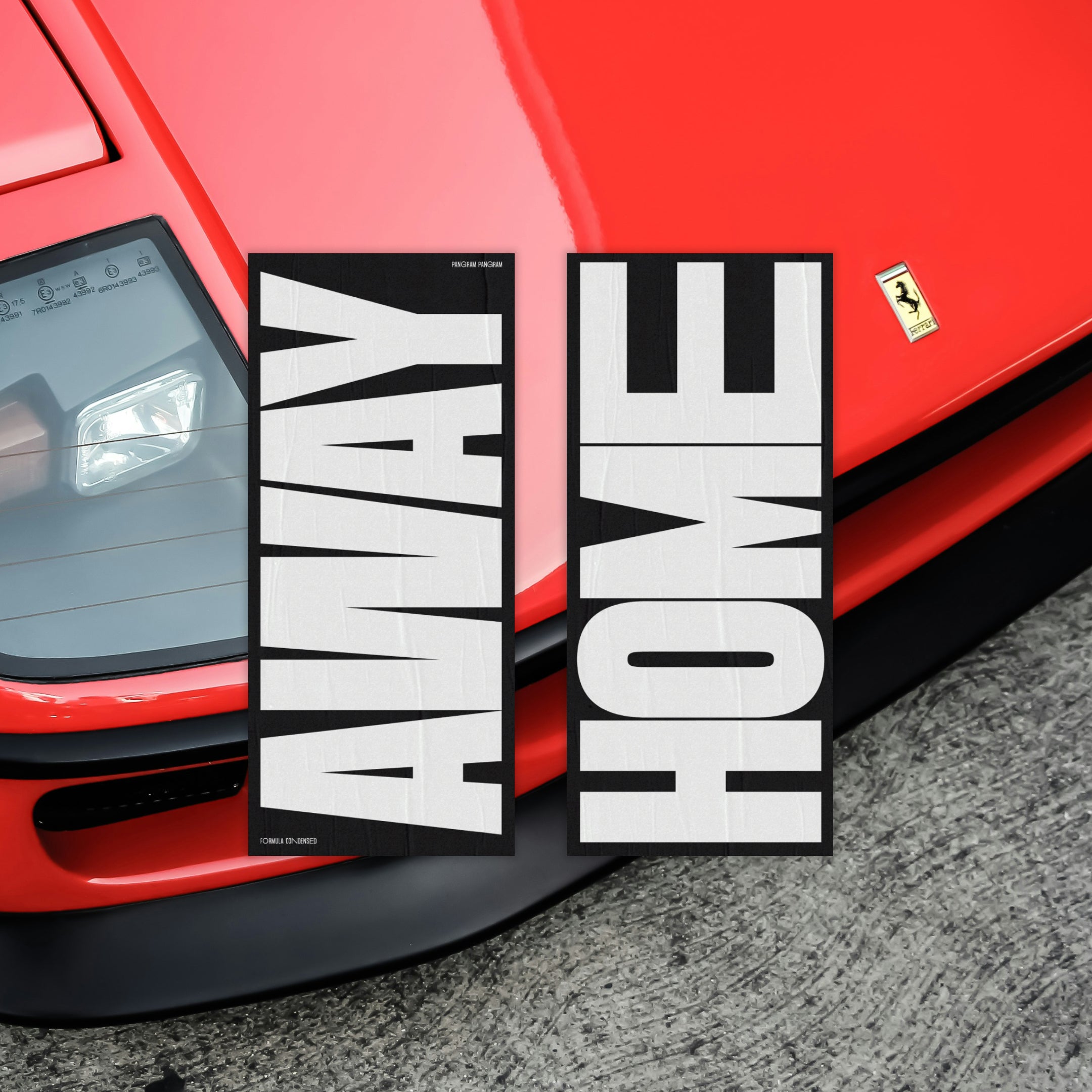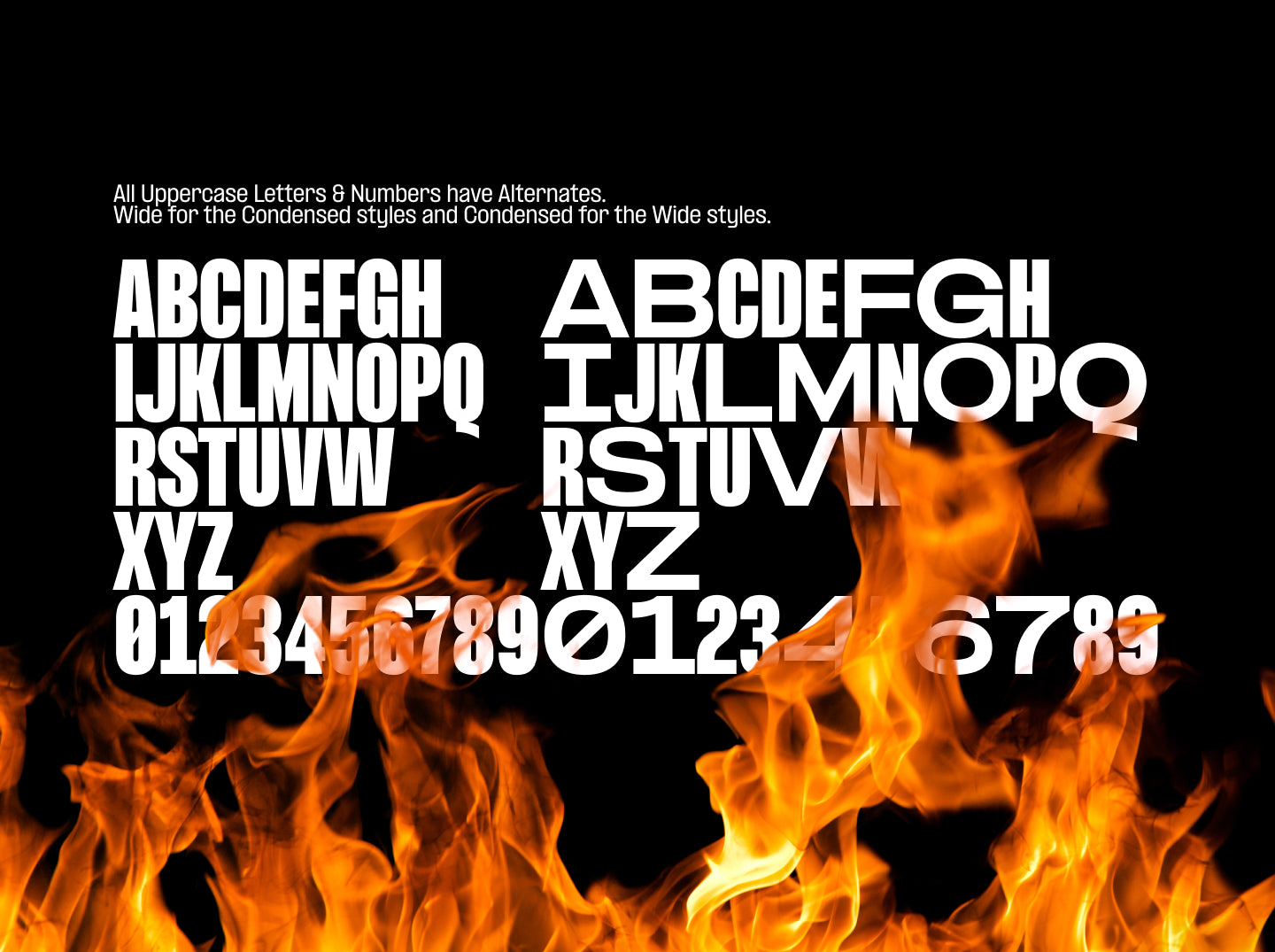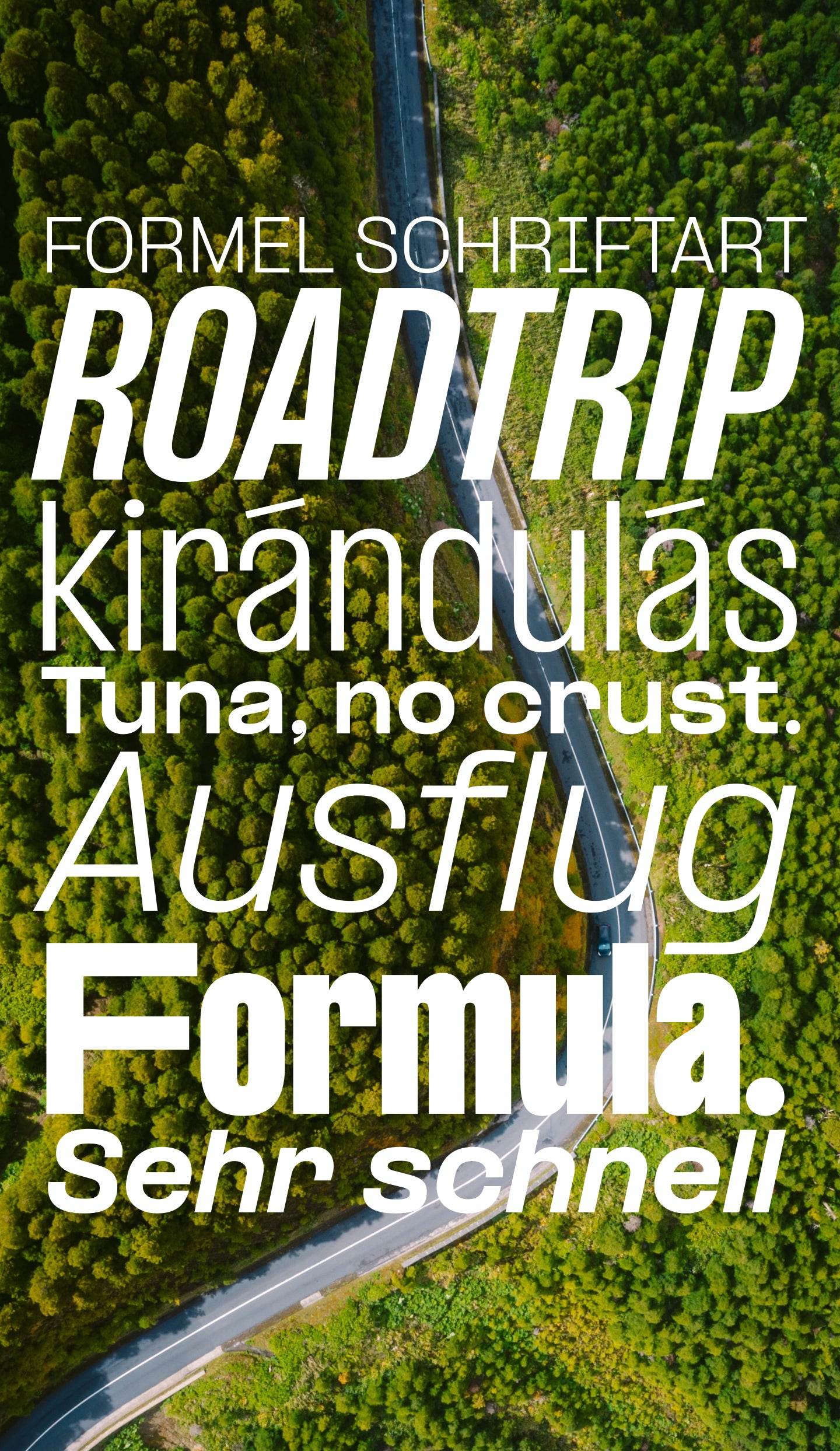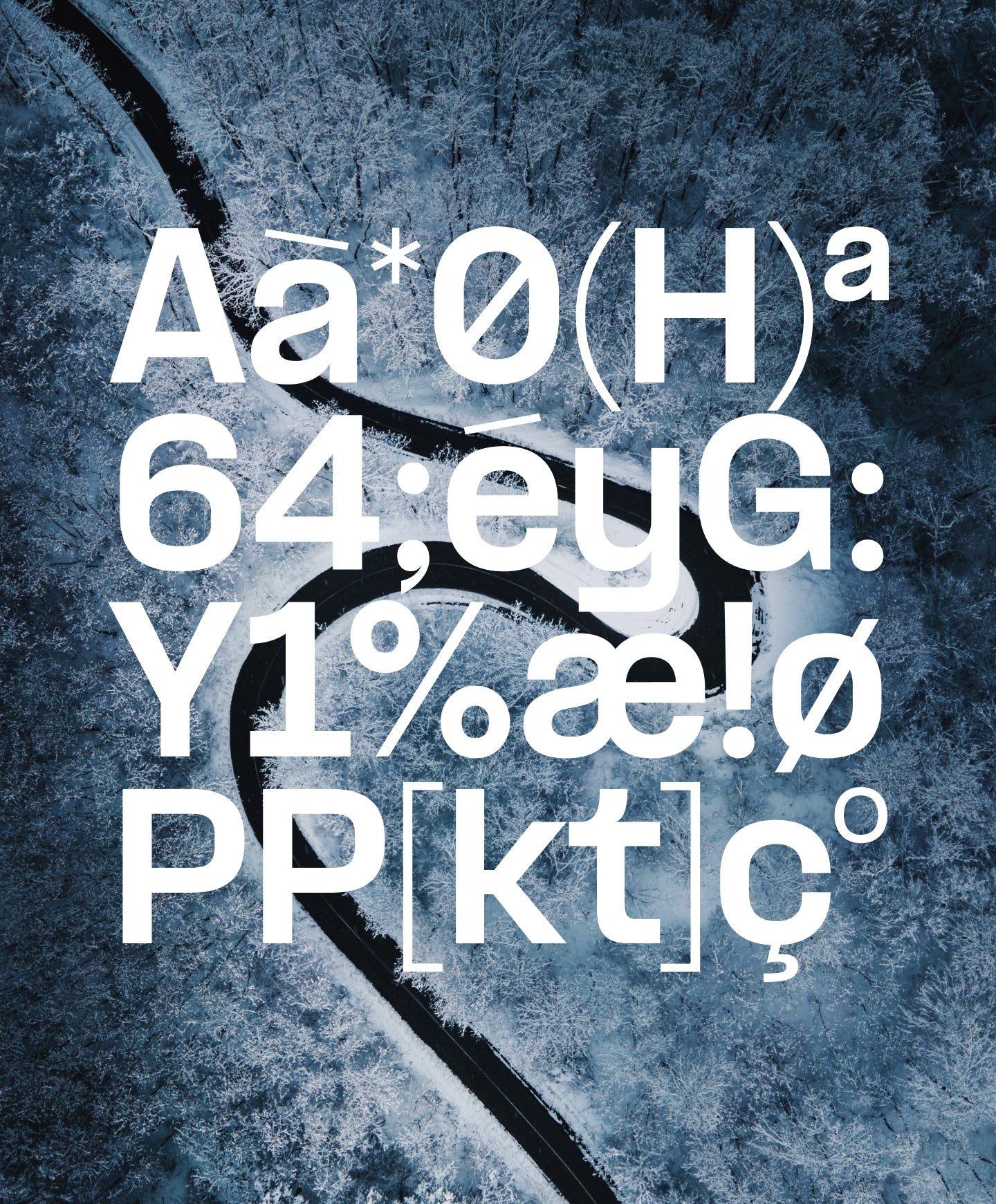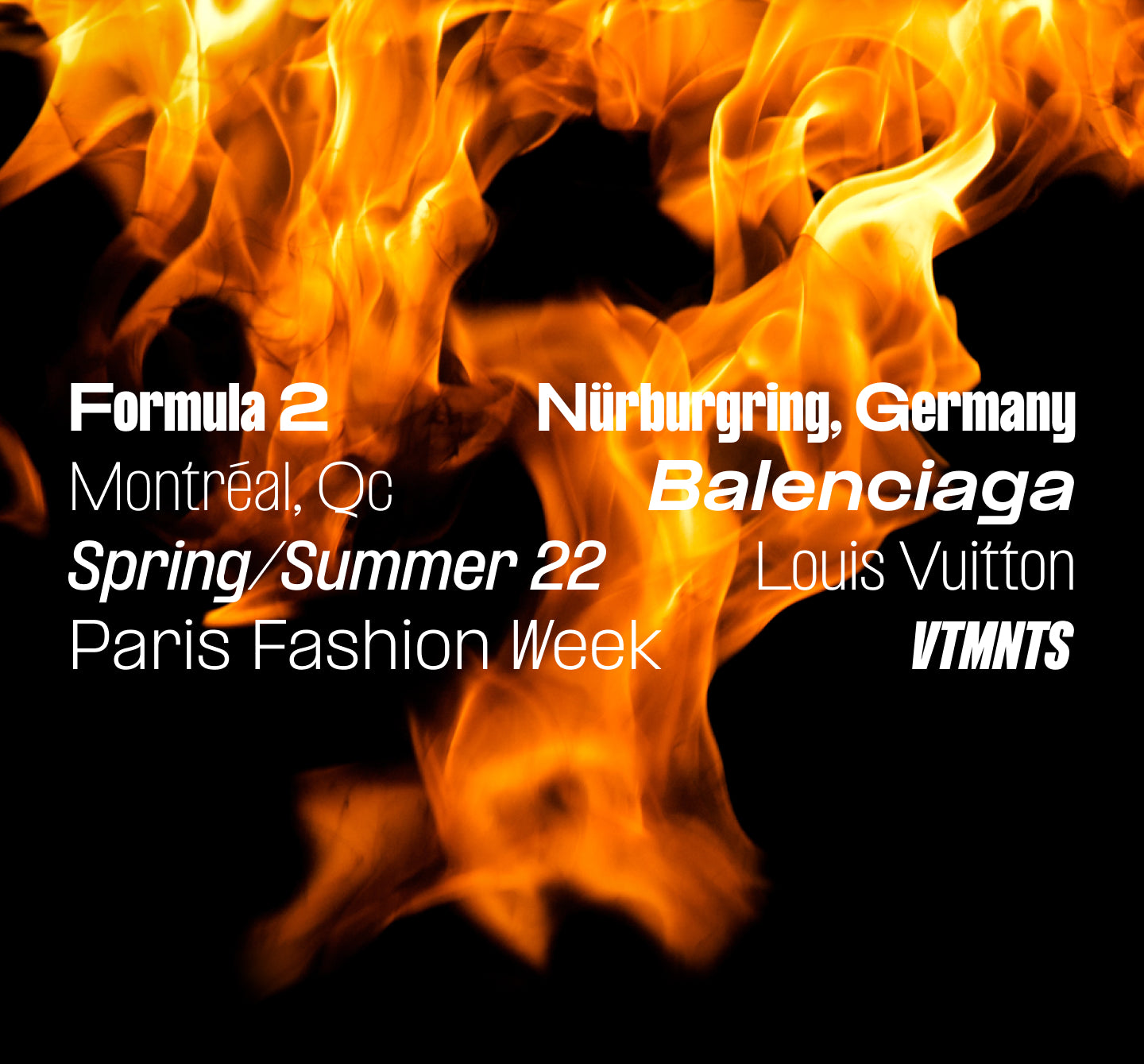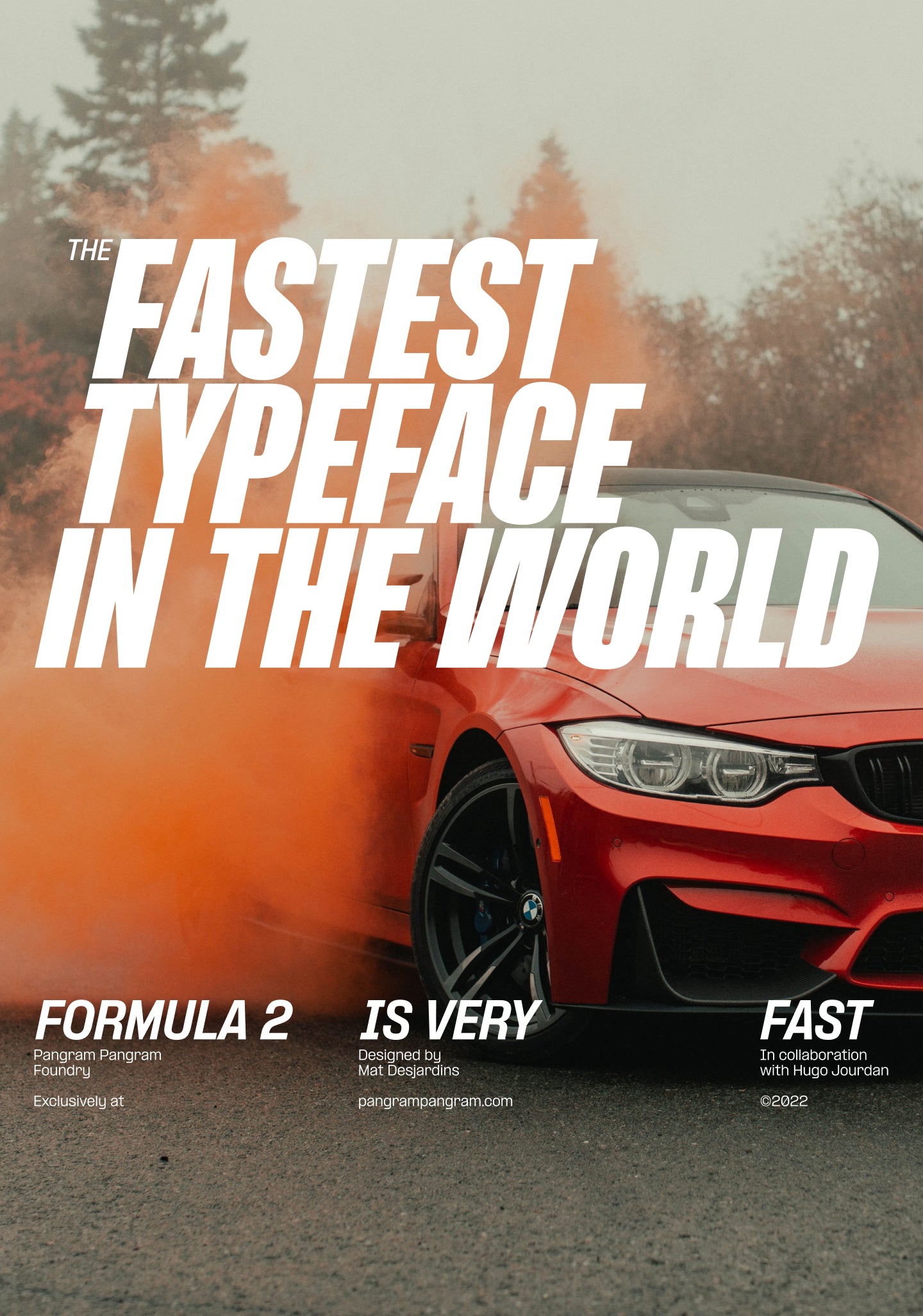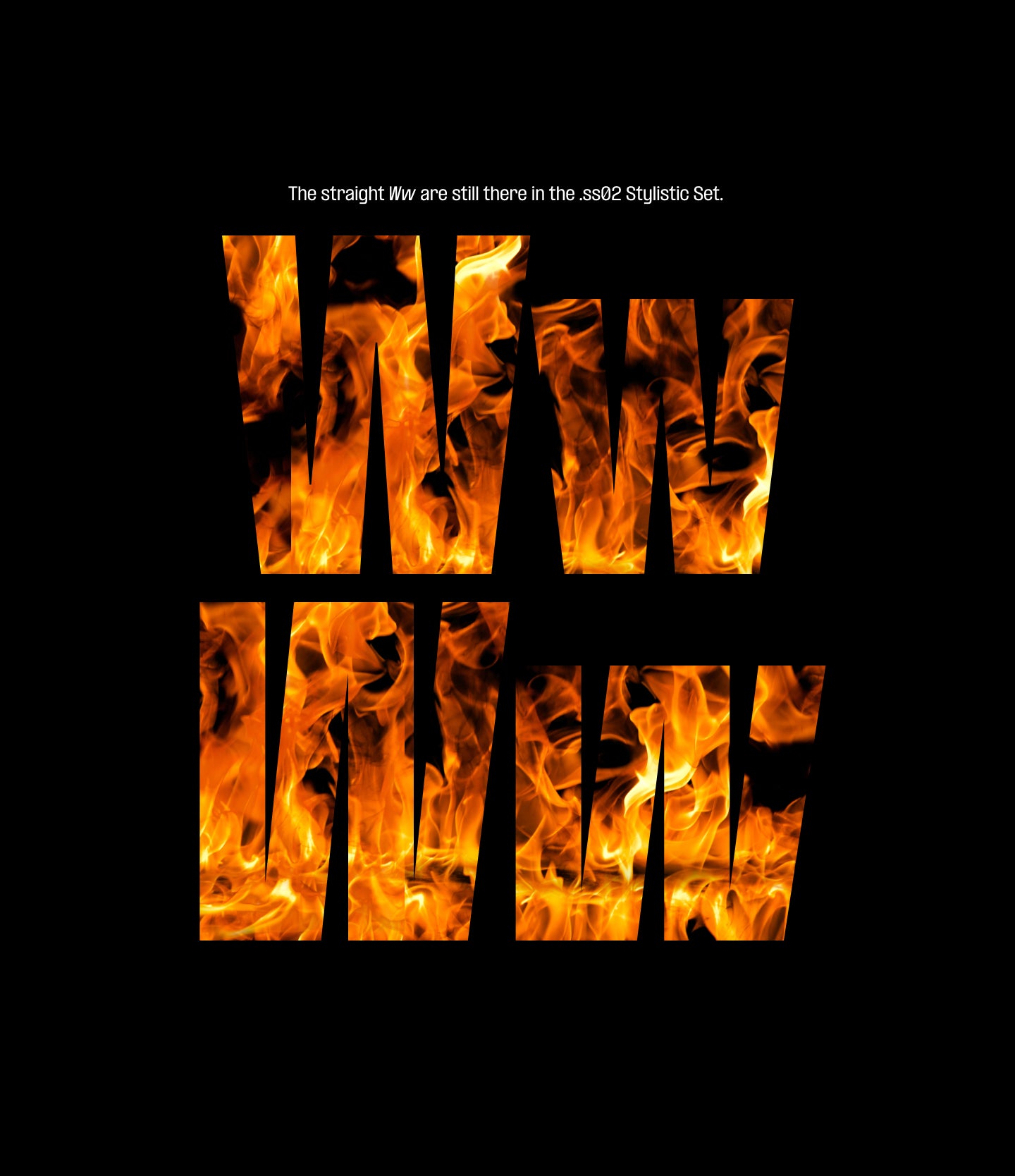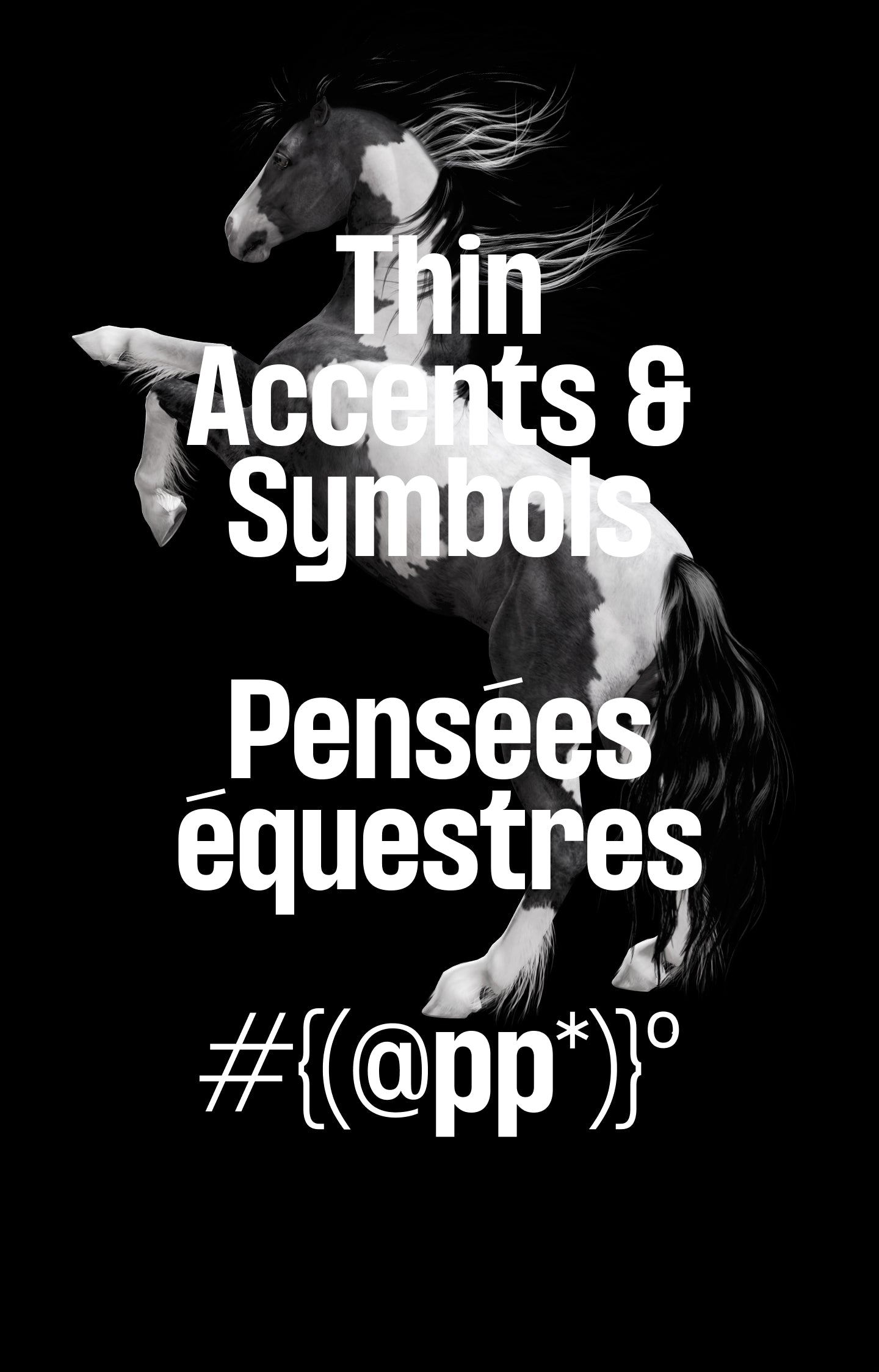
Formula Condensed
Racy by nature. Grotesk by design. This typeface doesn't idle.
Formula
Condensed Family
Formula Condensed's Features
Built to move.
Formula was designed to make an impactful statement in your designs, wether you are using the Condensed Black Italic style for your race-inspired campaign ● or the Normal Regular weight just to go along as body text, this typeface has got it all!
18 Styles with 685 Glyphs each
Including Italic and Wide Alternates